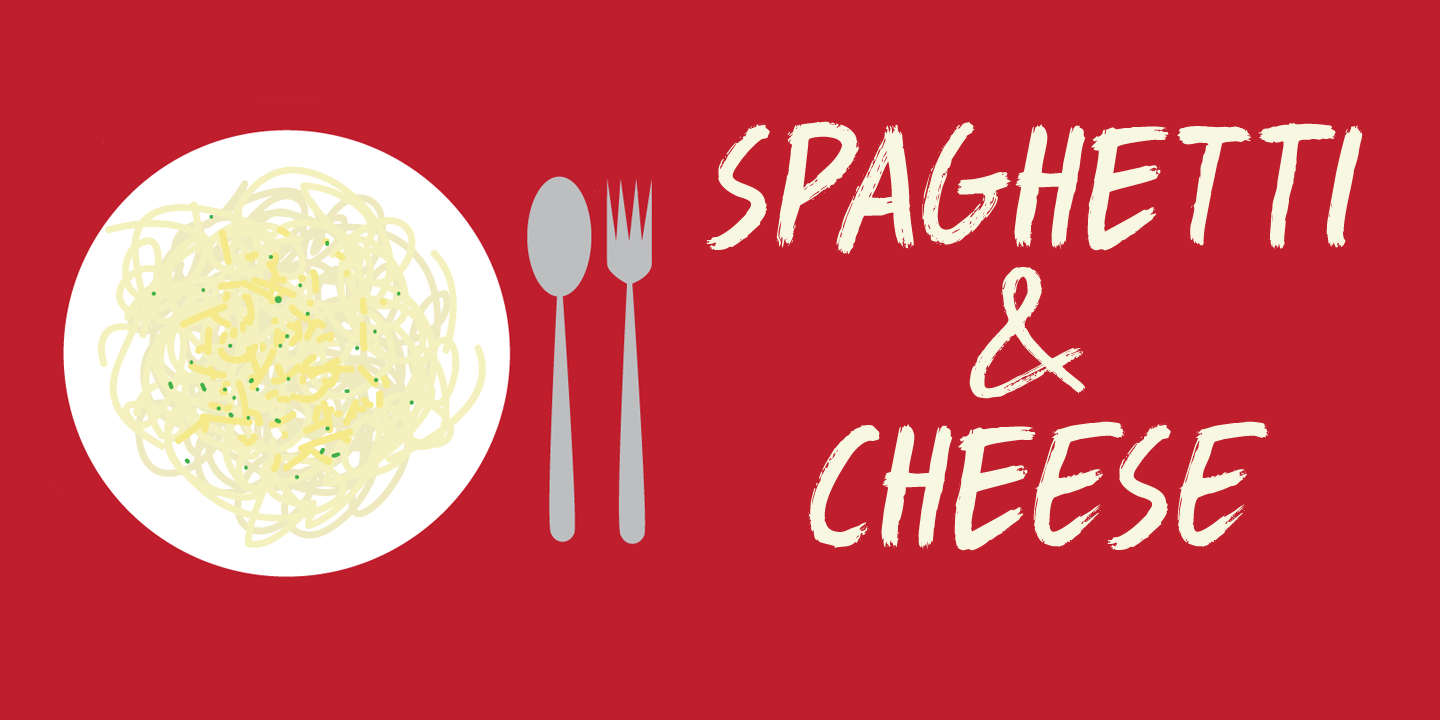
The Spaghetti And Cheese Font is incredibly versatile, making it perfect for a wide range of creative projects. Imagine using it for playful restaurant menus, whimsical children's book titles, engaging social media graphics, or eye-catching product packaging. Its unique charm also makes it ideal for event invitations, branding for small businesses, and even crafting personalized greeting cards. If you're looking to add a touch of fun and personality to your designs, this font is an excellent choice.
What makes Spaghetti And Cheese Font truly exciting is its ability to evoke a sense of warmth, nostalgia, and a handcrafted feel. It's not just a typeface; it's an experience. The charmingly irregular lines and friendly curves give it a whimsical character that instantly grabs attention and creates a memorable impression. This font is perfect for projects that aim to be approachable, imaginative, and stand out from the crowd. Its playful aesthetic can transform ordinary text into something truly delightful and engaging, making your designs feel more human and inviting.
The Spaghetti And Cheese Font family typically includes a range of weights and styles to provide maximum flexibility for your design needs. While specific variations can differ, you can generally expect to find options like regular, bold, and perhaps even an italic version. Some font families might also offer different stylistic alternatives or ligatures, further enhancing its usability and creative potential. These variations allow you to maintain a consistent visual theme across various applications, from headlines to body text, while adding subtle nuances and visual interest.